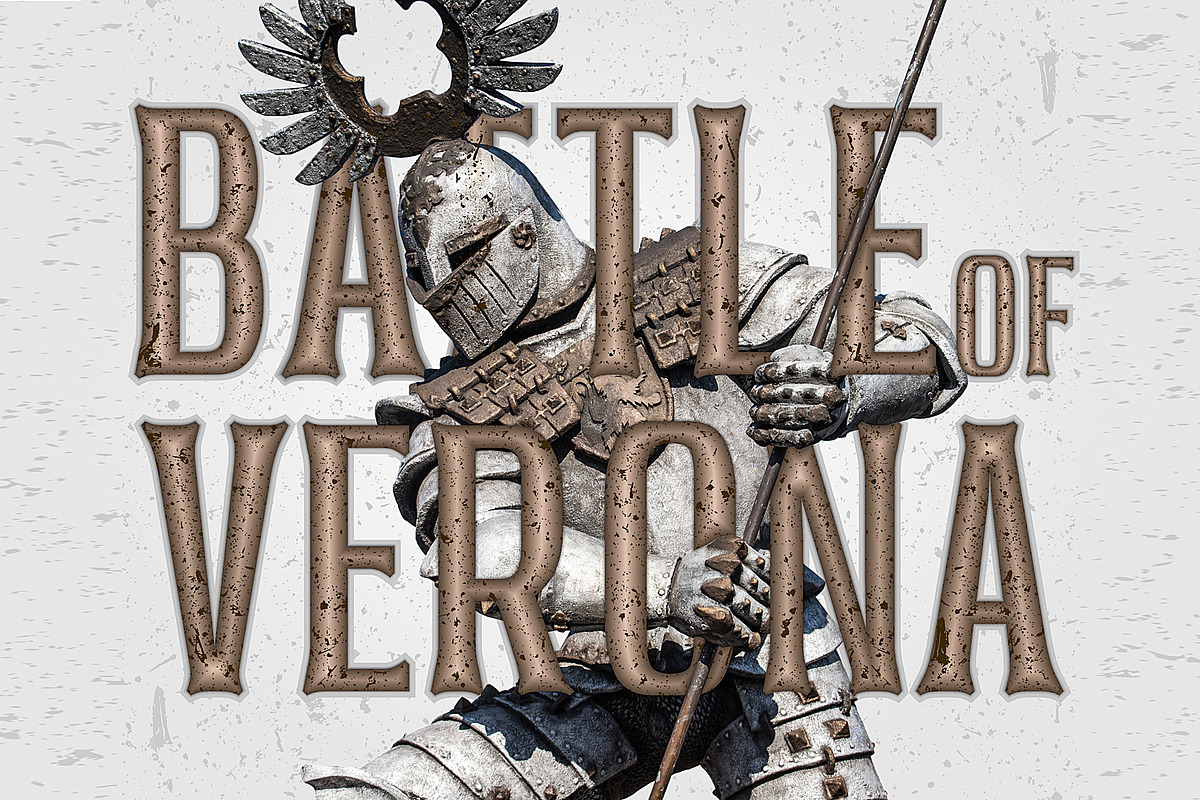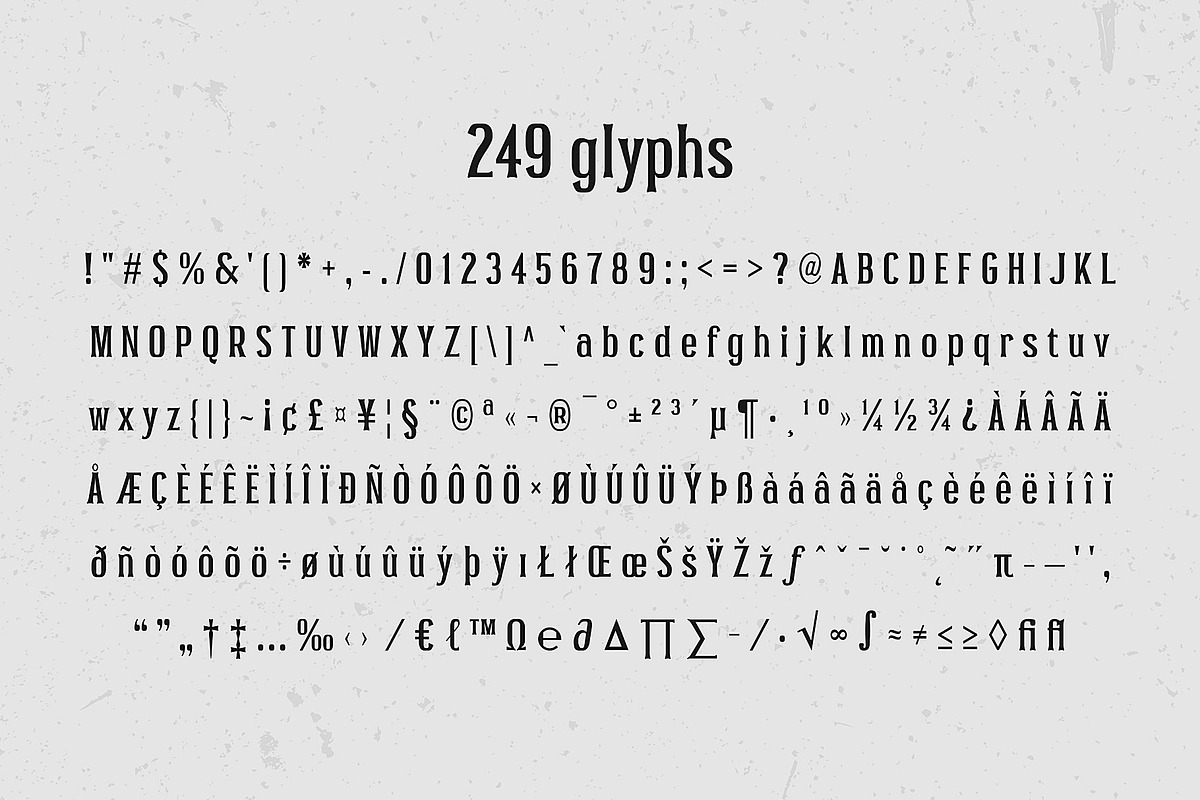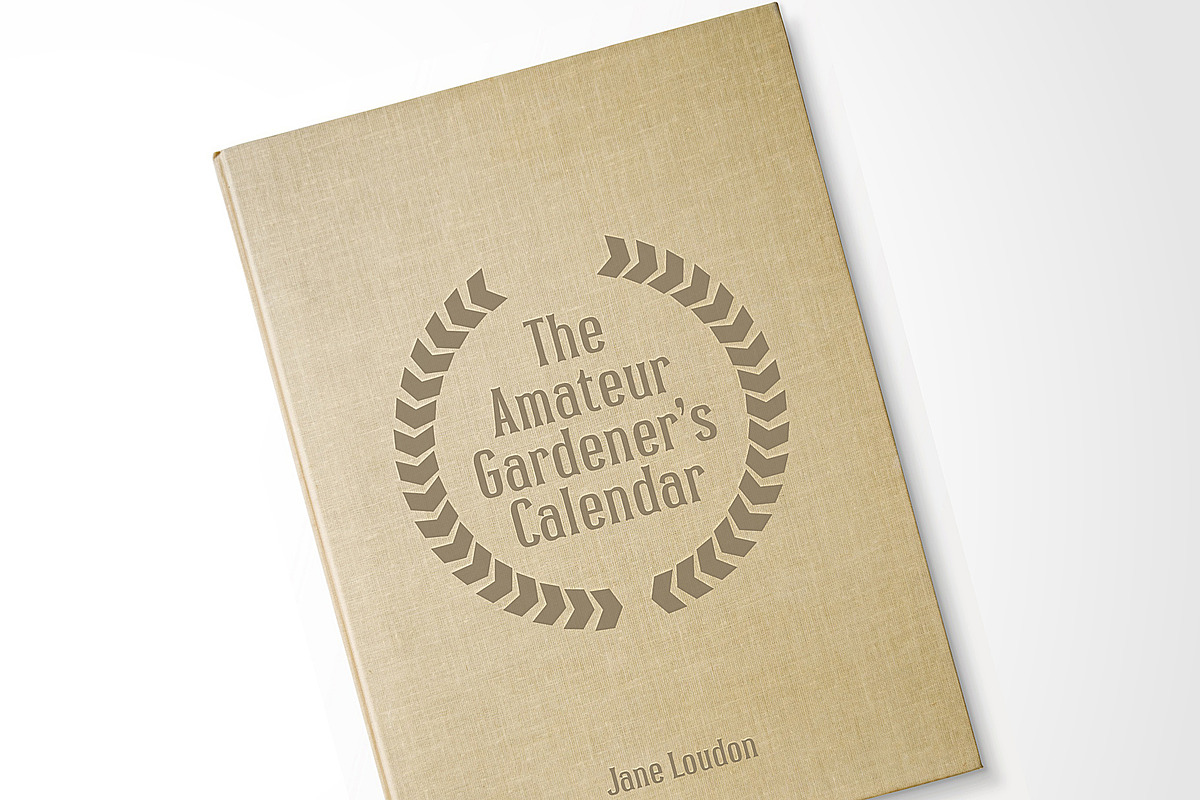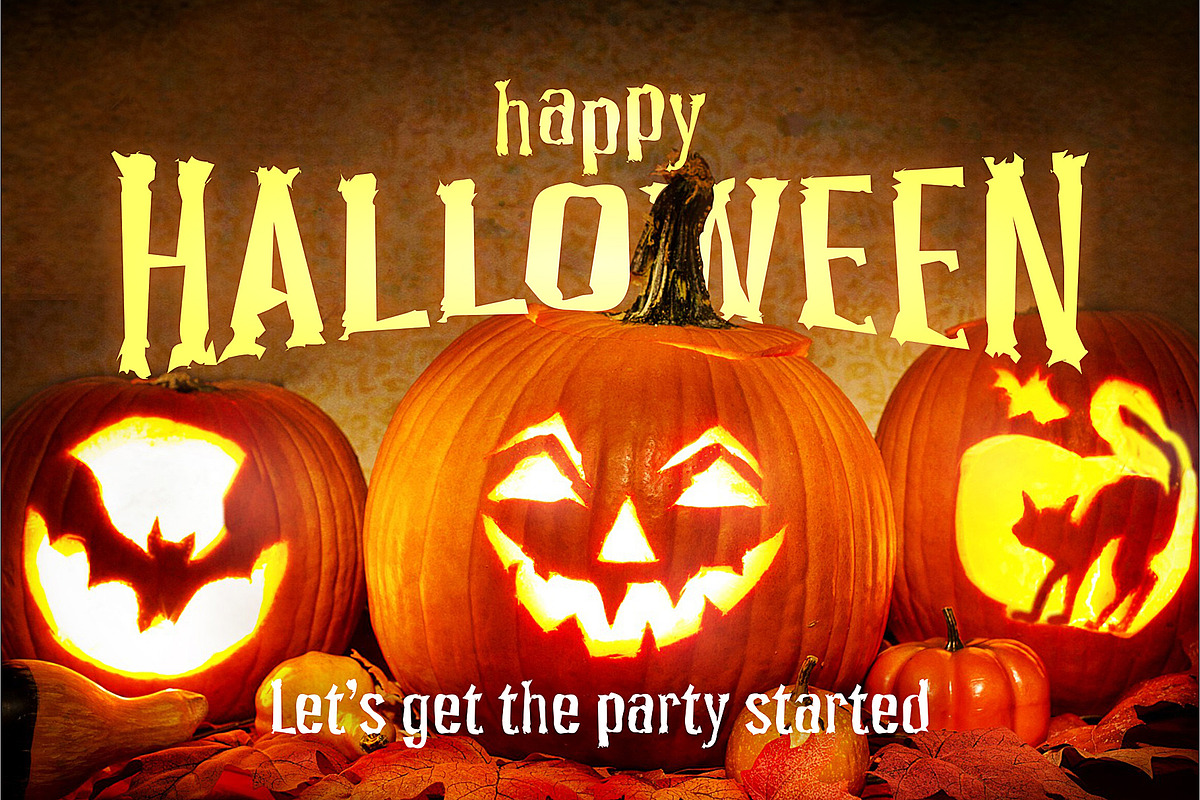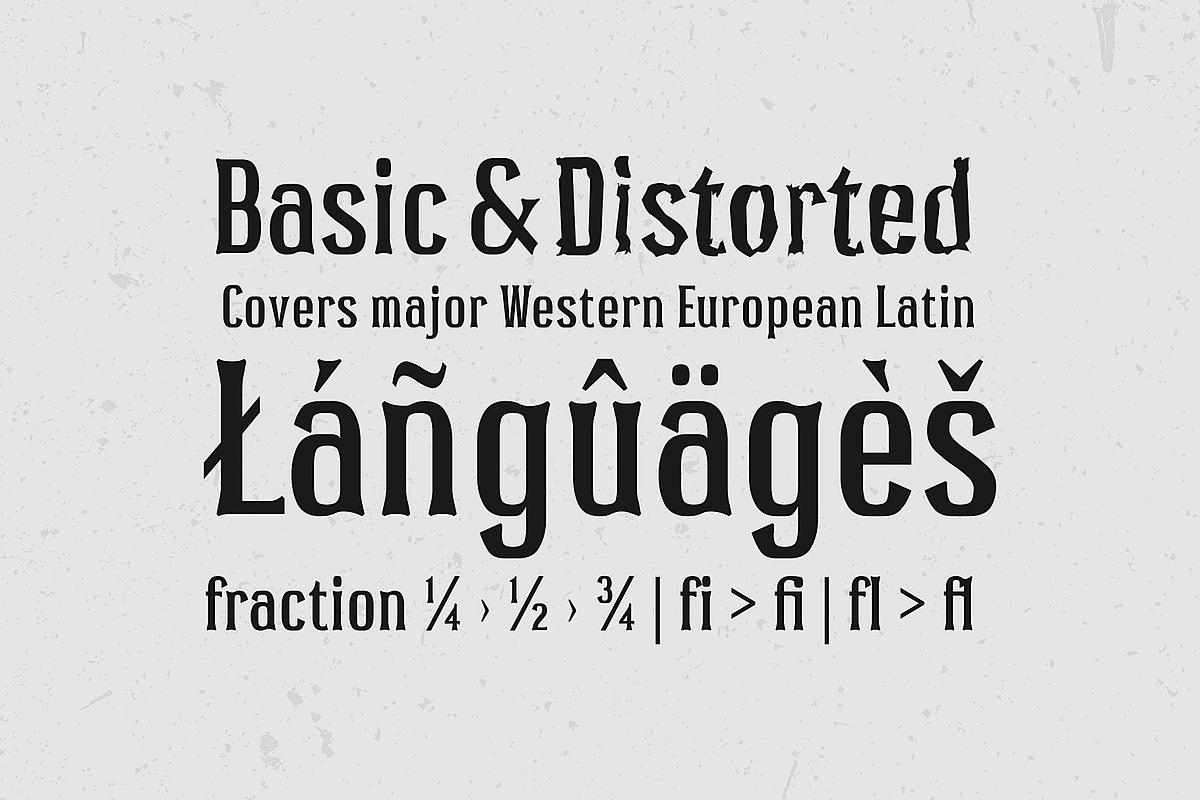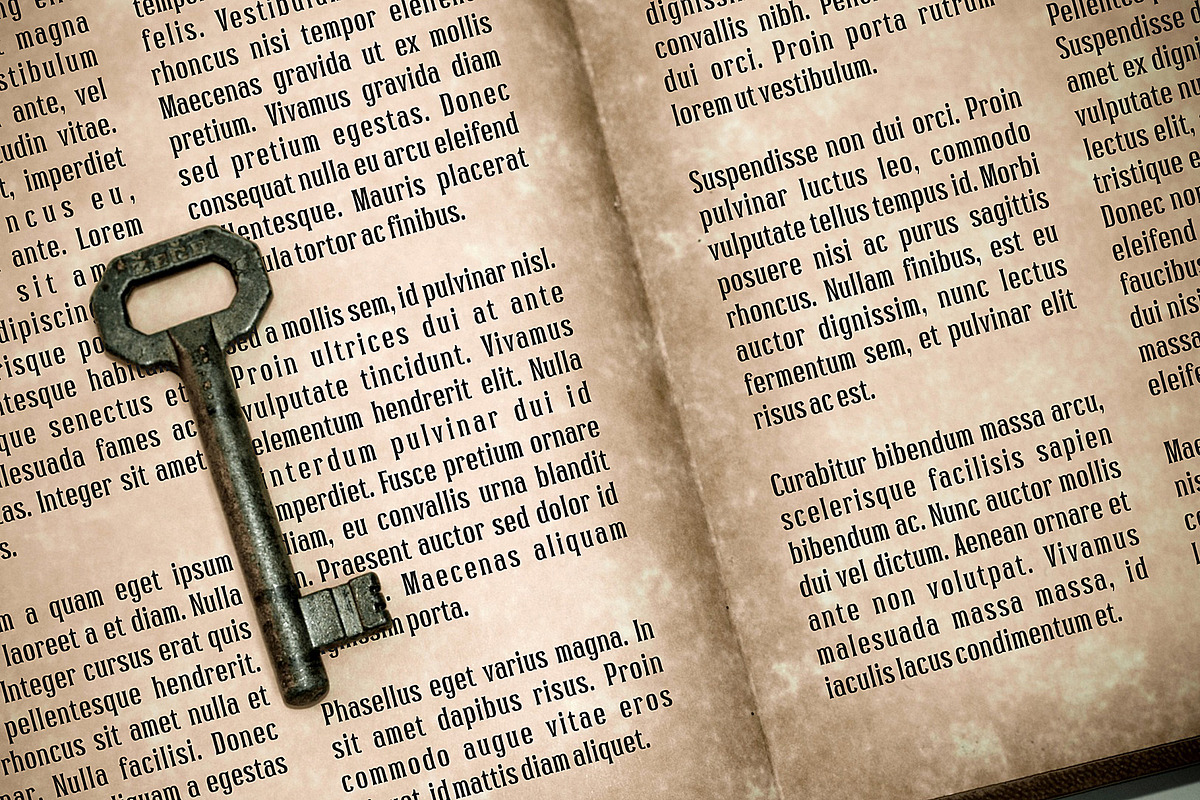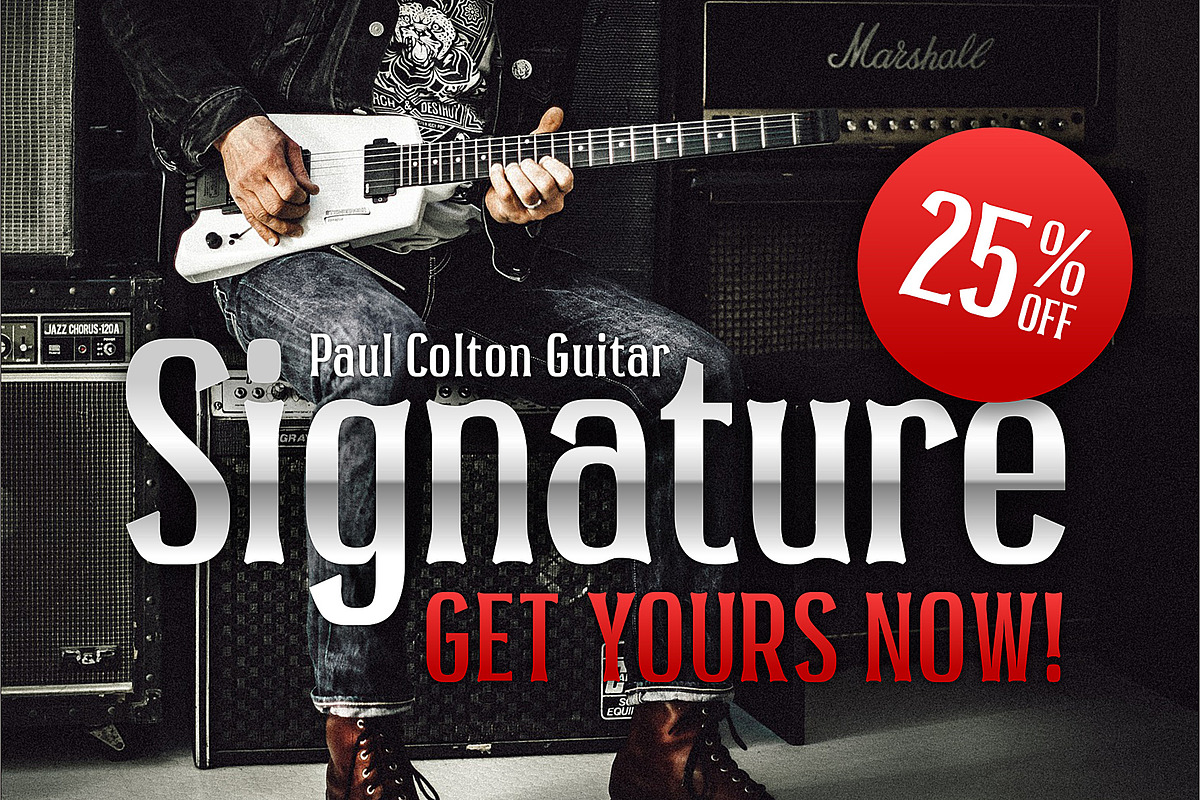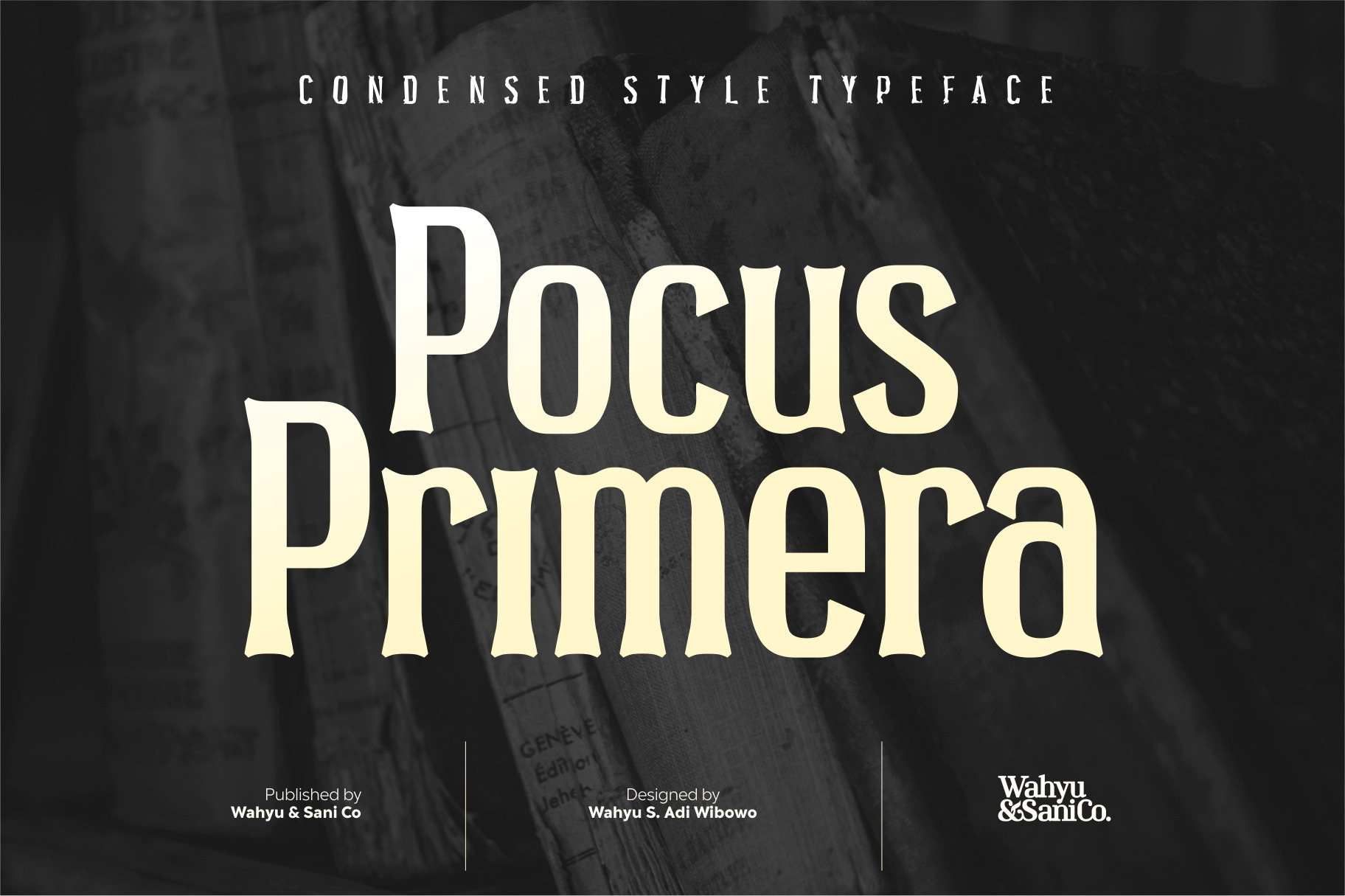
Pocus Primera | Condensed Style Font
Condensed style typeface with modified stem on its ends which gives a unique serif lookalike. Comes in two versions, basic and distorted, support most Western European Latin languages. Uppercase, lowercase, punctuation, and some mathematical symbols included. Suitable for flyer and poster project.